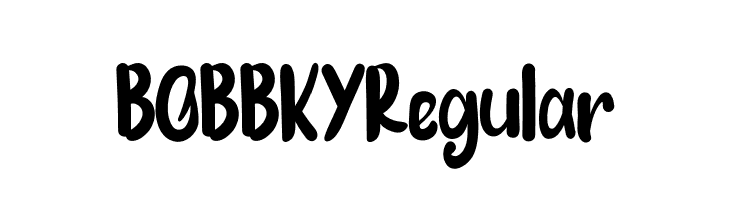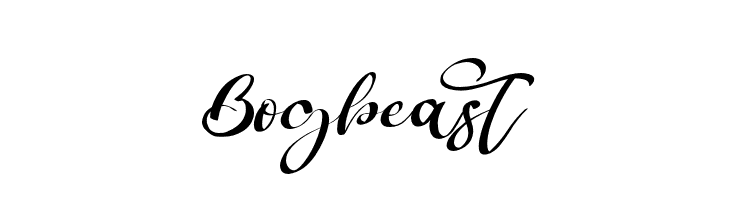
A bold, playful font with rounded, hand-drawn characters.
A playful, bold font with rounded edges and a bubbly appearance.
A whimsical and elegant script font with flowing, interconnected letterforms.
A playful, informal handwritten font with rounded, slightly irregular letterforms.
A high-contrast, elegant serif font with sharp serifs and a modern aesthetic.
A bold, angular font with a modern and edgy style.
A bold, geometric outline font with sharp angles and a modern style.
A pixelated, monospaced font with a retro digital aesthetic.
A bold, textured serif font with a vintage, distressed look.
A high-contrast serif font with a rough, vintage texture and elegant style.